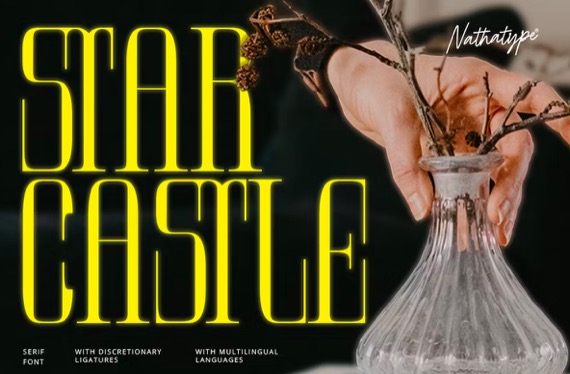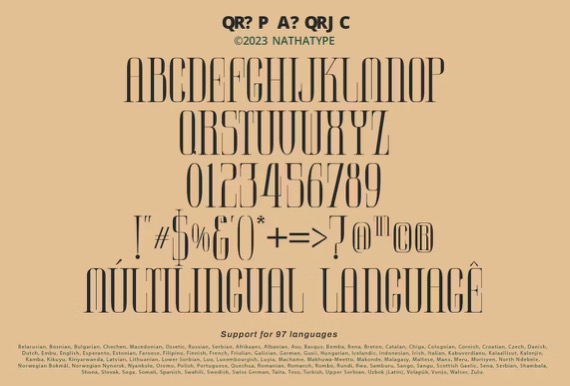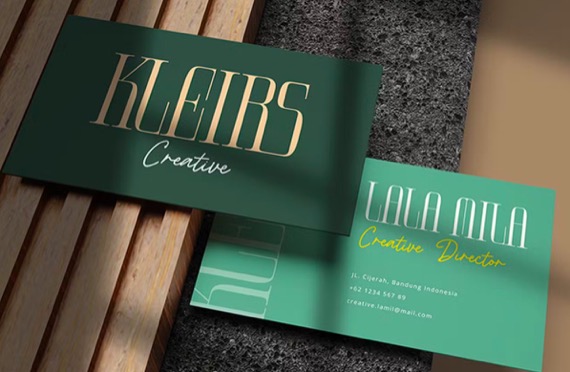
Star Castle gives your designs a cool dose of personality! Star Castle is a sophisticated serif font. It’s a versatile tool that allows you to infuse your projects with a sense of elegance and modernity. The deliberate use of high contrast ensures not only readability but also adds a touch of modern elegance to this timeless typeface.
The characters in Star Castle are meticulously crafted, each possessing an elongated and rectangular form that contributes to the font’s unique visual identity. The thin weight offers a delicate touch, allowing the tall letter design to stand out while maintaining an overall sense of grace.
Star Castle Serif Font